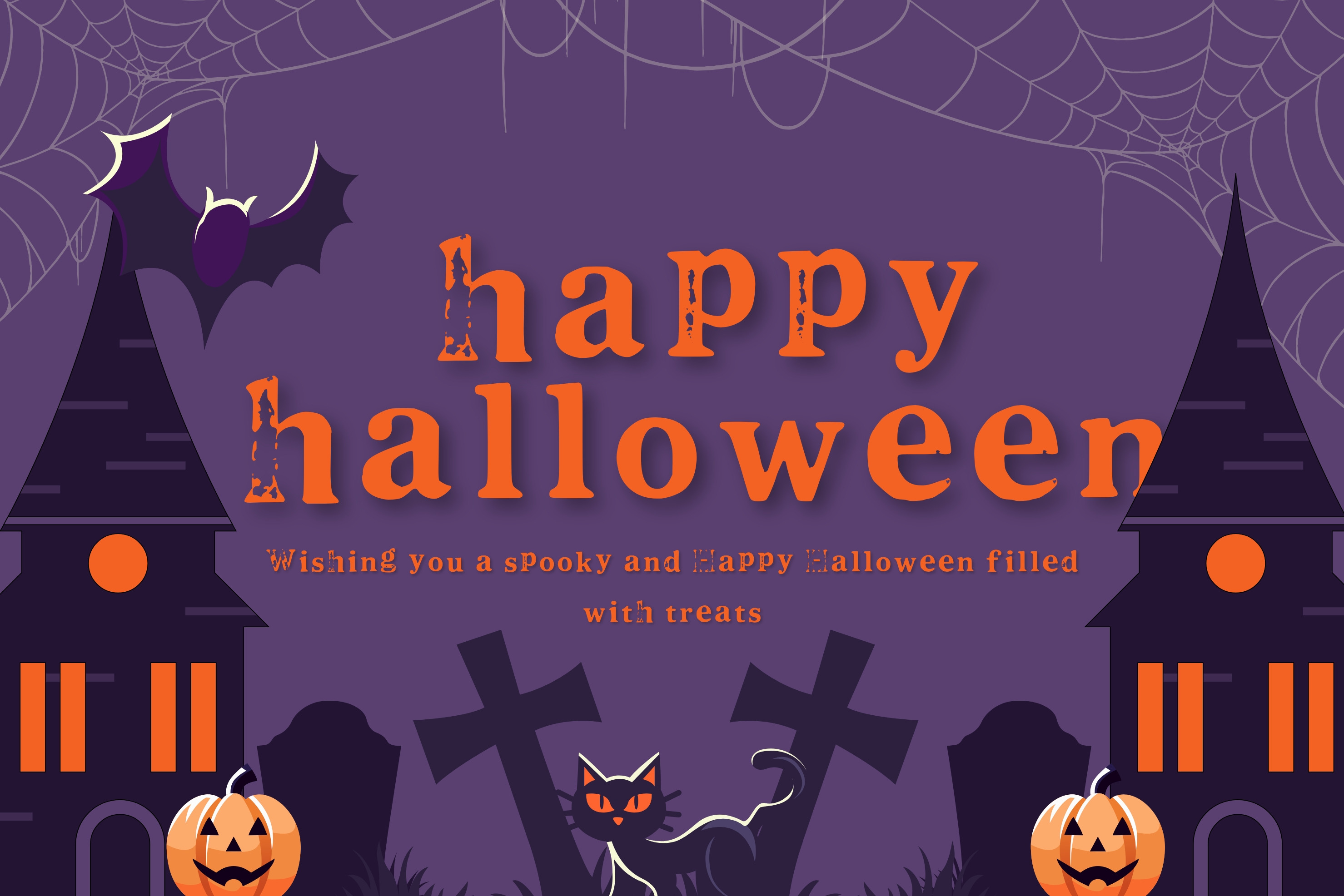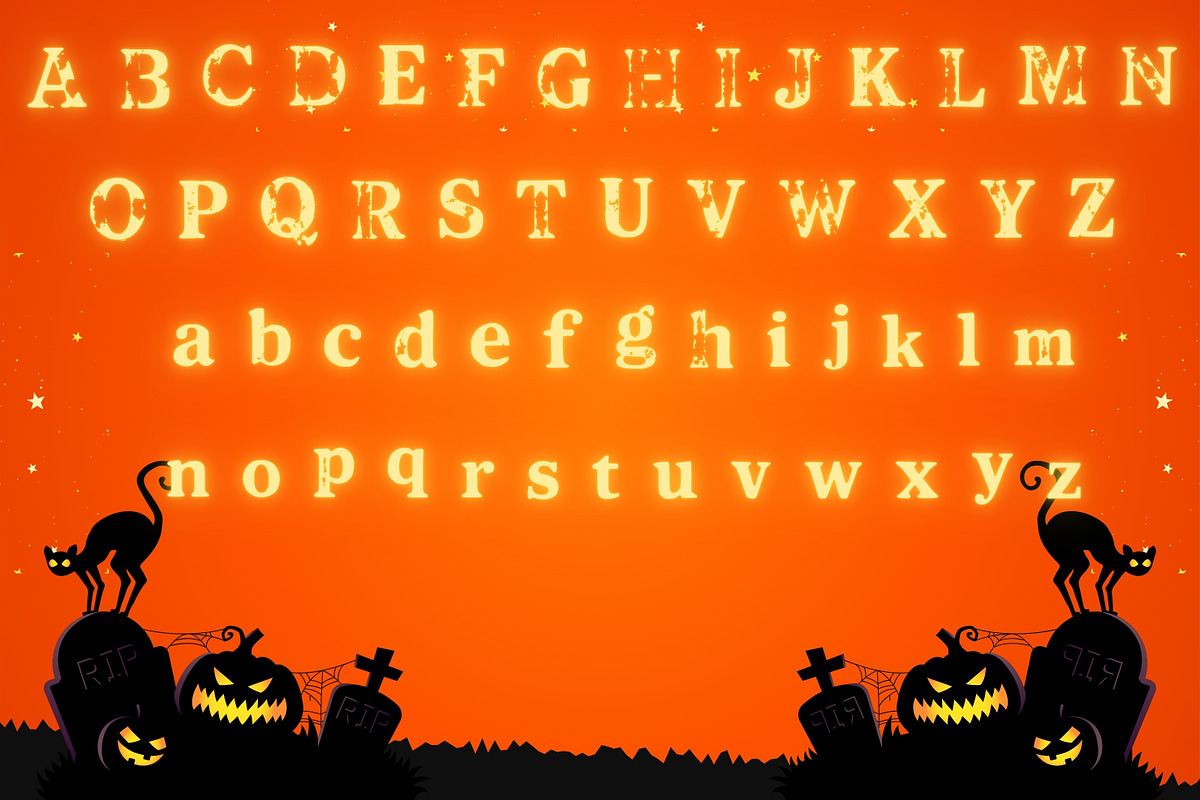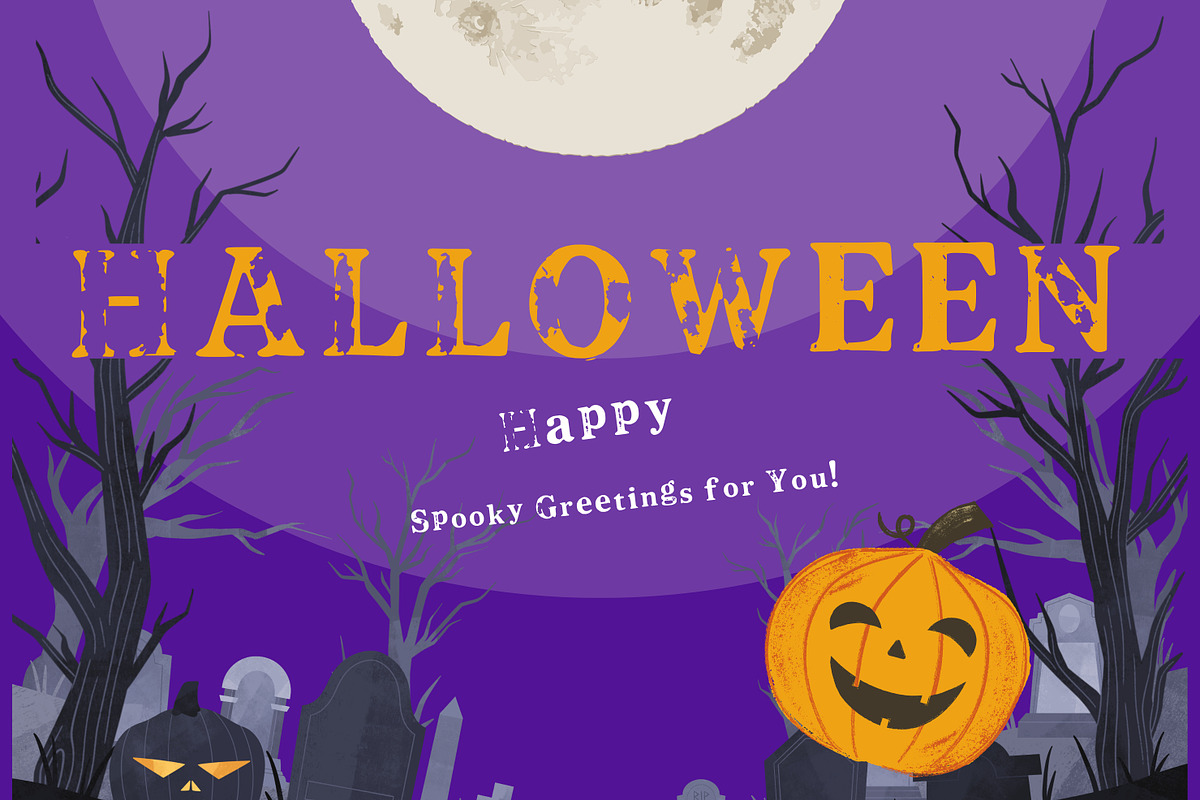
Retro Serif Vintage Serif Font
Retro Serif is a stylish vintage-inspired serif font that combines classic elegance with a bold retro vibe. Perfect for branding, posters, logos, packaging, book covers, and editorial design, this typeface adds timeless charm to any project.
This font is designed to be versatile, making it ideal for both display and body text. With clean curves, sharp edges, and a touch of nostalgia, Retro Serif helps your designs stand out with personality and sophistication.
Use Retro Serif to bring a vintage yet modern look to your creative projects, whether for digital or print.